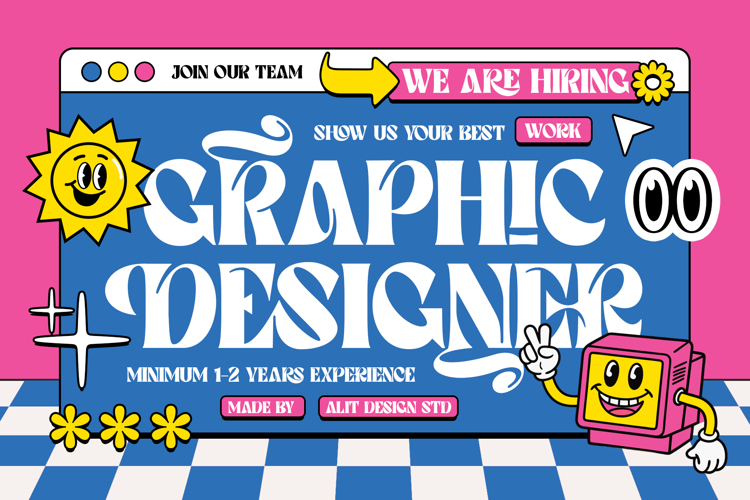
Blode starkly Font
This is a fantastic font—it perfectly captures that trending "Retro-Futuristic Hippie" and "90s Psychedelic" aesthetic. Since this style is very popular on platforms like Creative Market and Behance, the description should focus on its versatility, its massive glyph count, and its fun personality.
Blode Starkly: The Ultimate 90s Retro Psychedelic Display Font
Step into a time machine and bring the vibrant, groovy energy of the 90s back to the future! Blode Starkly is not just a font; it’s a total design experience. Inspired by the playful, trippy, and expressive "Rubber Hose" and "Psychedelic" art styles, this typeface is designed to make your projects pop with personality and a touch of vintage nostalgia.